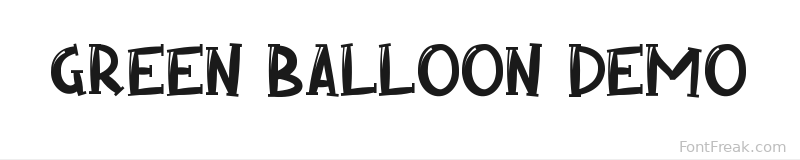
Green Balloon Demo
The Green Balloon Demo font by Noah Type is a playful and engaging display typeface that radiates a sense of whimsy and creativity. This font falls into the decorative category, making it an excellent choice for projects that require a light-hearted, fun aesthetic. The strokes are slightly irregular, creating a hand-drawn effect that enhances its charm. The bold stroke weight adds visual impact, while the rounded edges and playful spacing contribute to its friendly appearance. The font's design features a unique balloon-like quality, which effectively encapsulates its name and evokes a sense of joy and celebration.
Green Balloon Demo is ideal for a wide range of applications. It shines in contexts such as children's event invitations, where its lively character can capture the spirit of the occasion. It's also perfect for playful branding projects, helping small businesses in sectors like party supplies or children's toys stand out. Additionally, this font can elevate the visual appeal of social media graphics, making it a favorite among content creators looking to engage their audience with eye-catching designs. For graphic designers, it serves as a wonderful option for crafting vibrant posters or flyers that demand attention.
The target audience for this font includes graphic designers, small business owners, and content creators who seek to convey a sense of fun and creativity in their work. The Green Balloon Demo font free download allows users to easily incorporate this whimsical typeface into their projects without any licensing concerns. With its unique design and versatile applications, the Green Balloon Demo font stands out as a refreshing choice that adds personality and charm to any design endeavor. Whether inviting guests to a birthday party or promoting a festive product, this font is sure to leave a lasting impression.